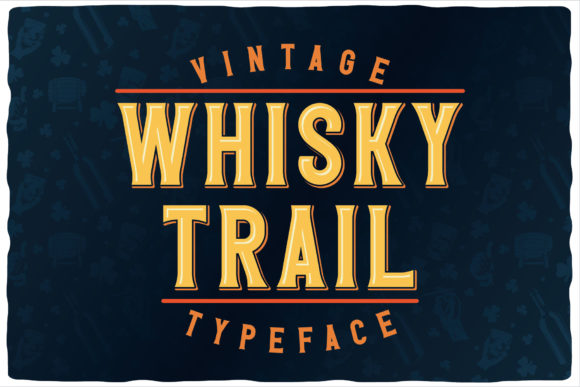
Introducing Whisky Trail Font, the perfect vintage display font to elevate your designs and captivate your audience. Created by the talented team at Vozzy Vintage Fonts And Graphics, this font offers a unique blend of style and versatility that will make your projects stand out from the crowd.
With its 7 stunning styles, Whisky Trail allows you to create a wide range of captivating designs. Whether you're looking to design eye-catching letterheads, attention-grabbing titles, or elegant stationery, this font has got you covered. Its diverse range of styles enables you to experiment and mix them, giving your creations a truly distinctive and personalized touch.
What sets Whisky Trail apart is its ability to evoke emotions and tell stories through typography. Each letter is meticulously crafted, exuding a sense of nostalgia and charm that will transport your audience to a bygone era. This font effortlessly captures the essence of vintage aesthetics, making it an ideal choice for those seeking to create a classic and timeless feel in their designs.
In conclusion, Whisky Trail Font is a must-have for anyone looking to make a statement with their designs. Its vintage charm, versatility, and search engine optimization make it a powerful tool for both creative professionals and e-commerce businesses. Download Whisky Trail today and unlock a world of endless possibilities for your projects.